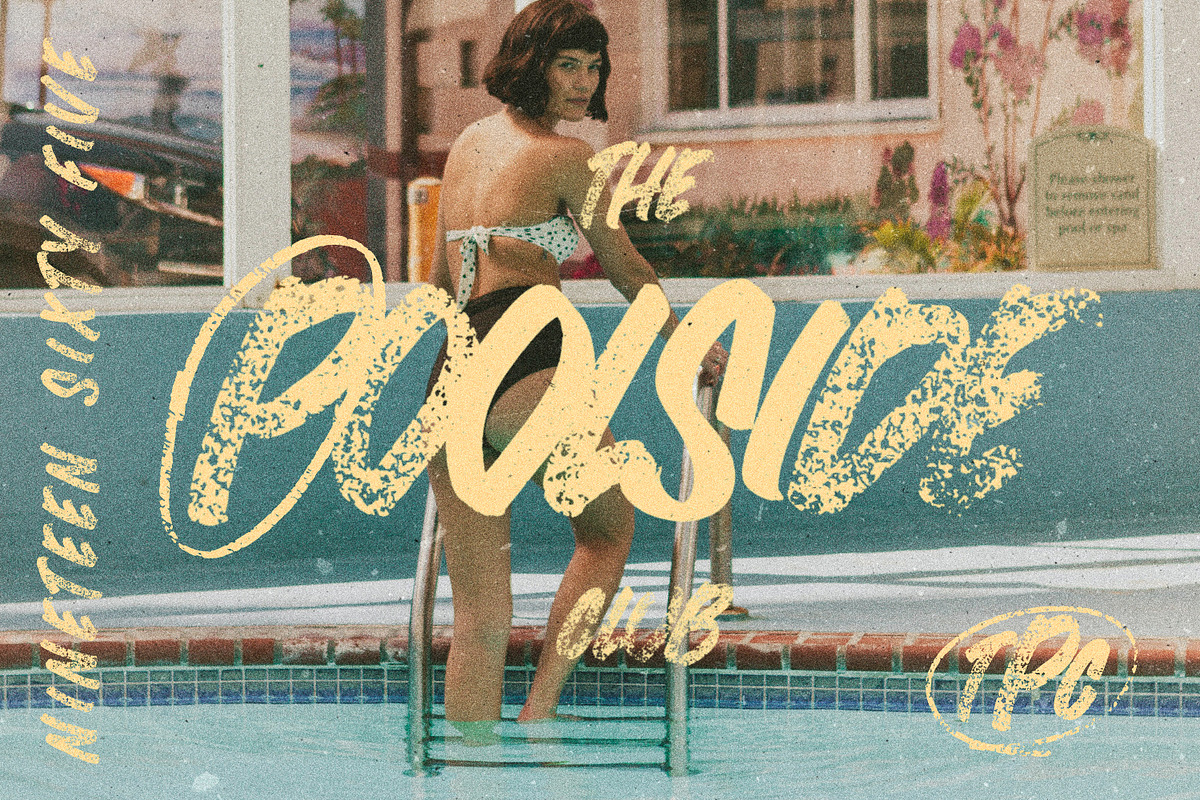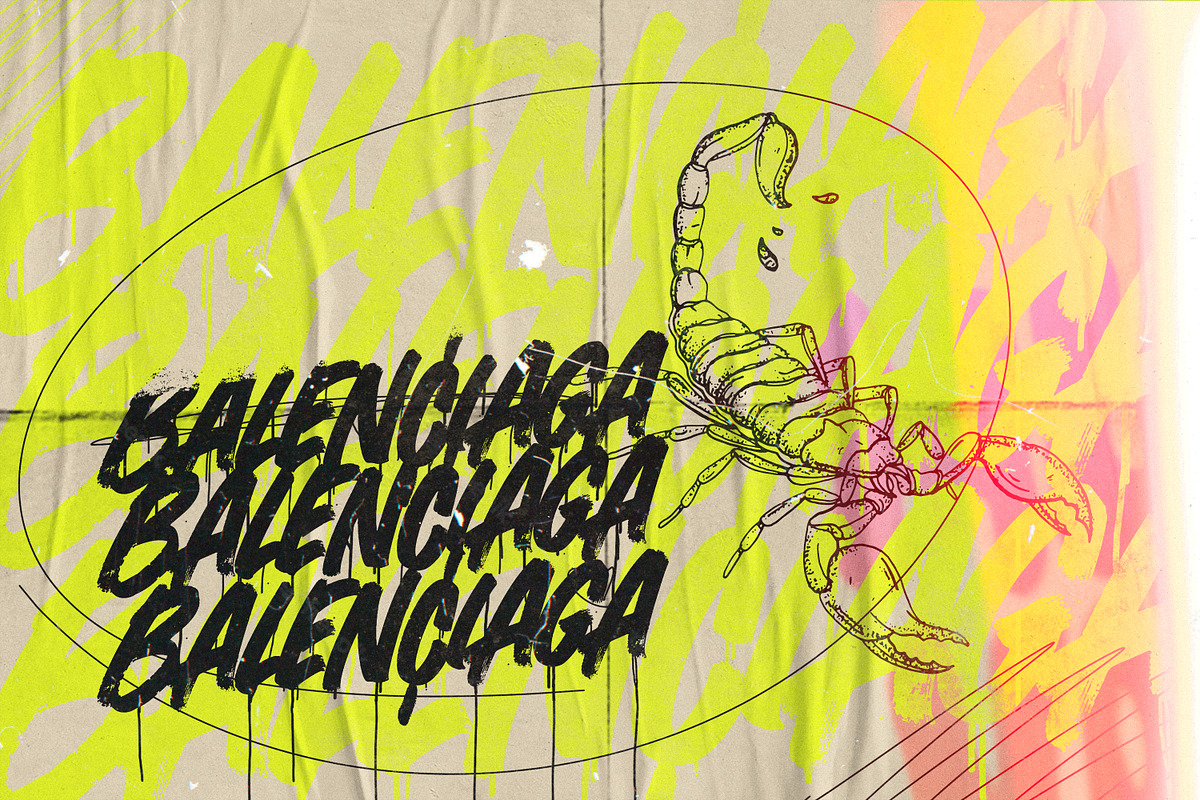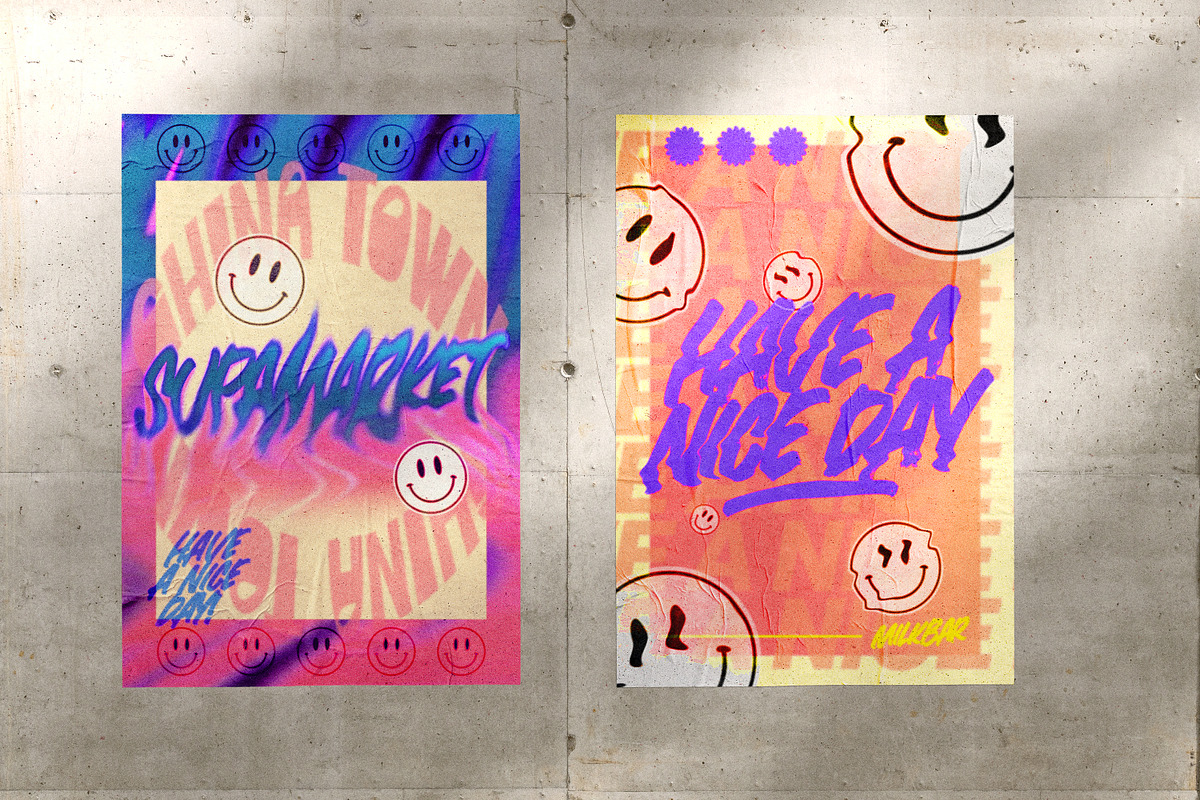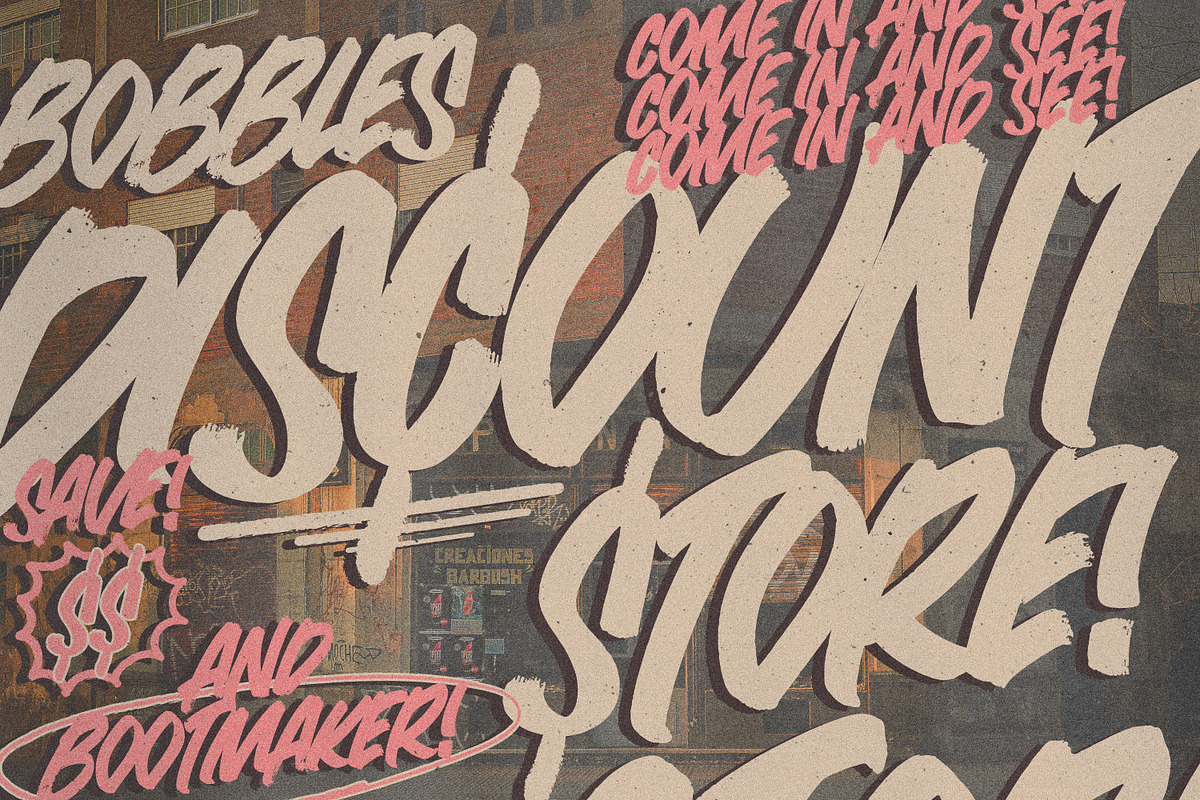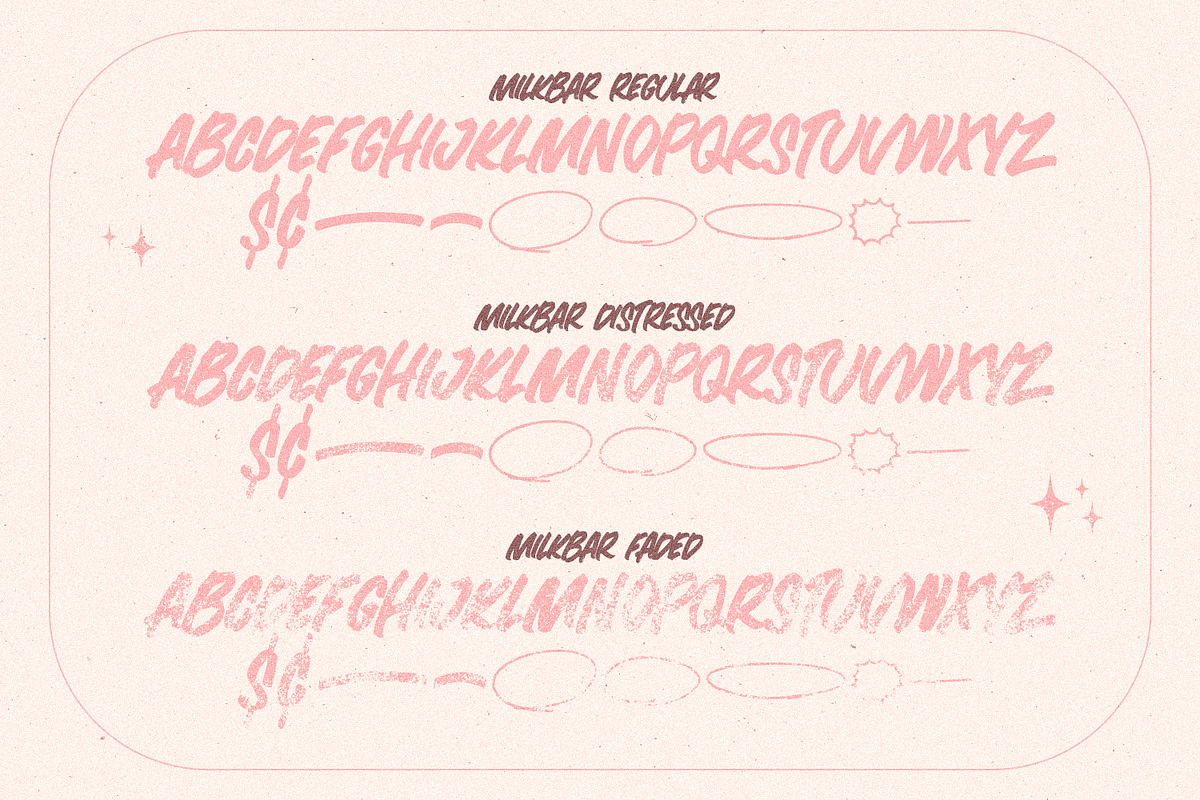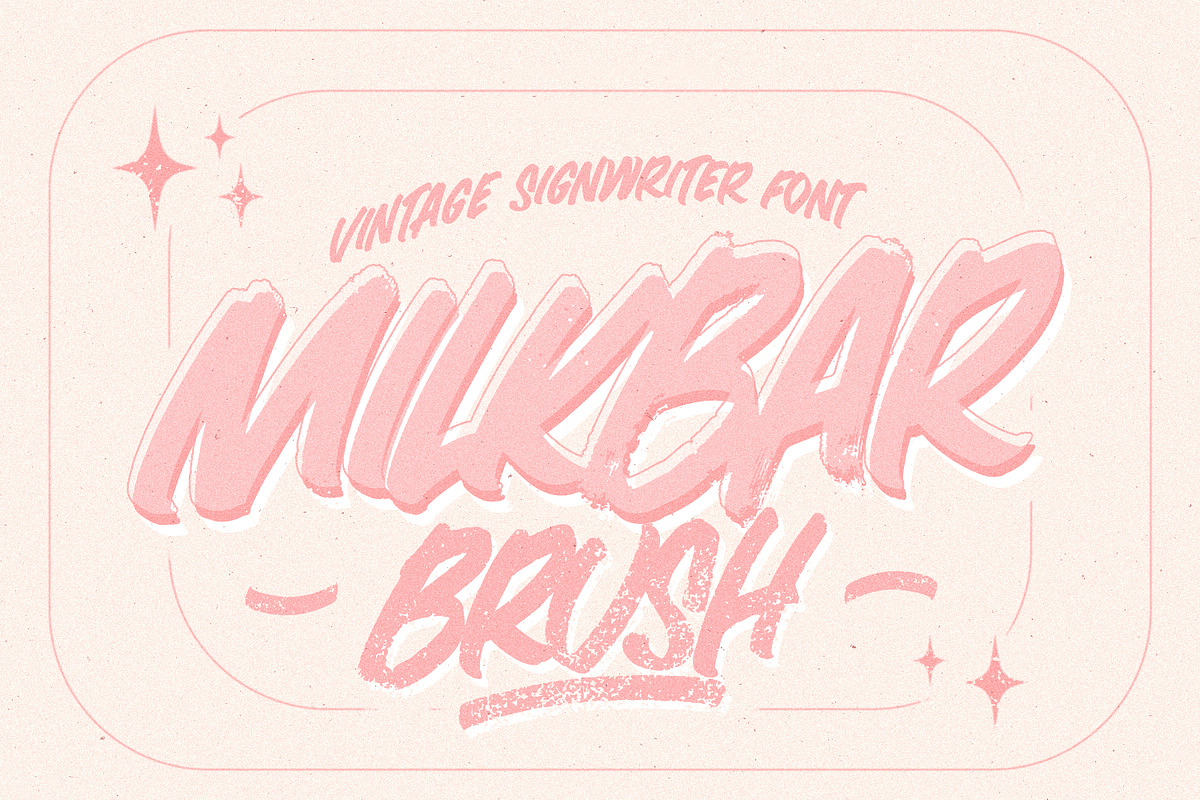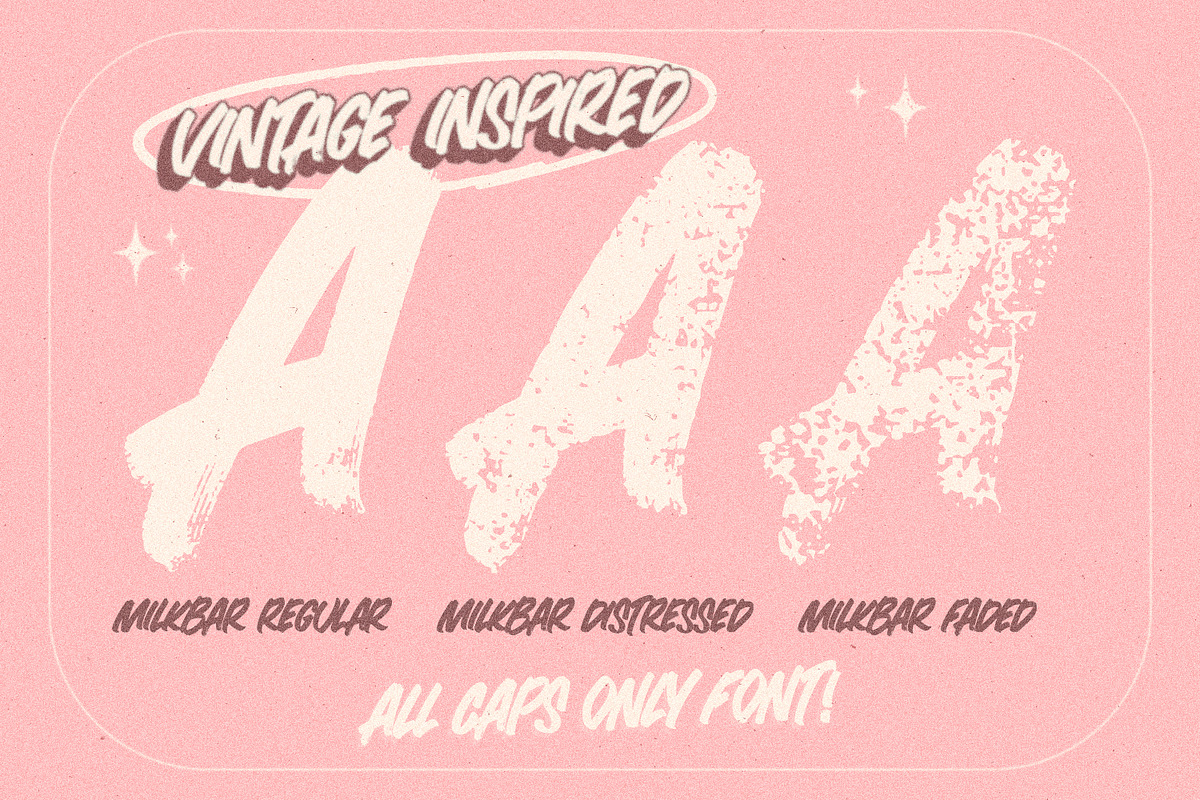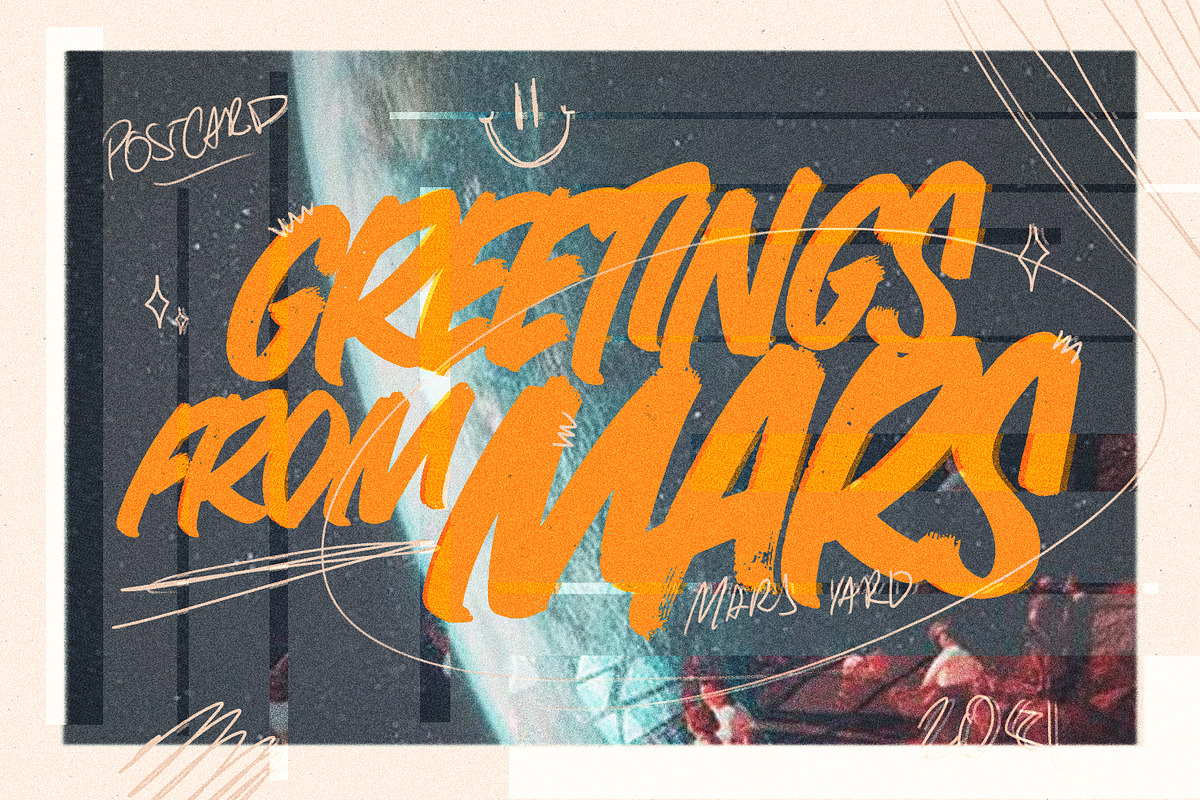
MILKBAR BRUSH Font
Introducing Milkbar Brush
Milkbar Brush Font is a completely unique and custom, vintage signwriter inspired font. Milkbar Brush comes with 3 variations and each style getting more textured and weathered! you can mix & match and is perfect for any design project.
Includes: Milkbar Brush / Milkbar Brush Faded / Milkbar Brush Distressed.
Features: All Caps Display Font ONLY